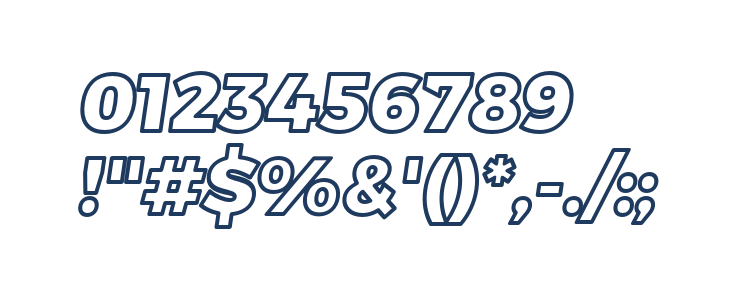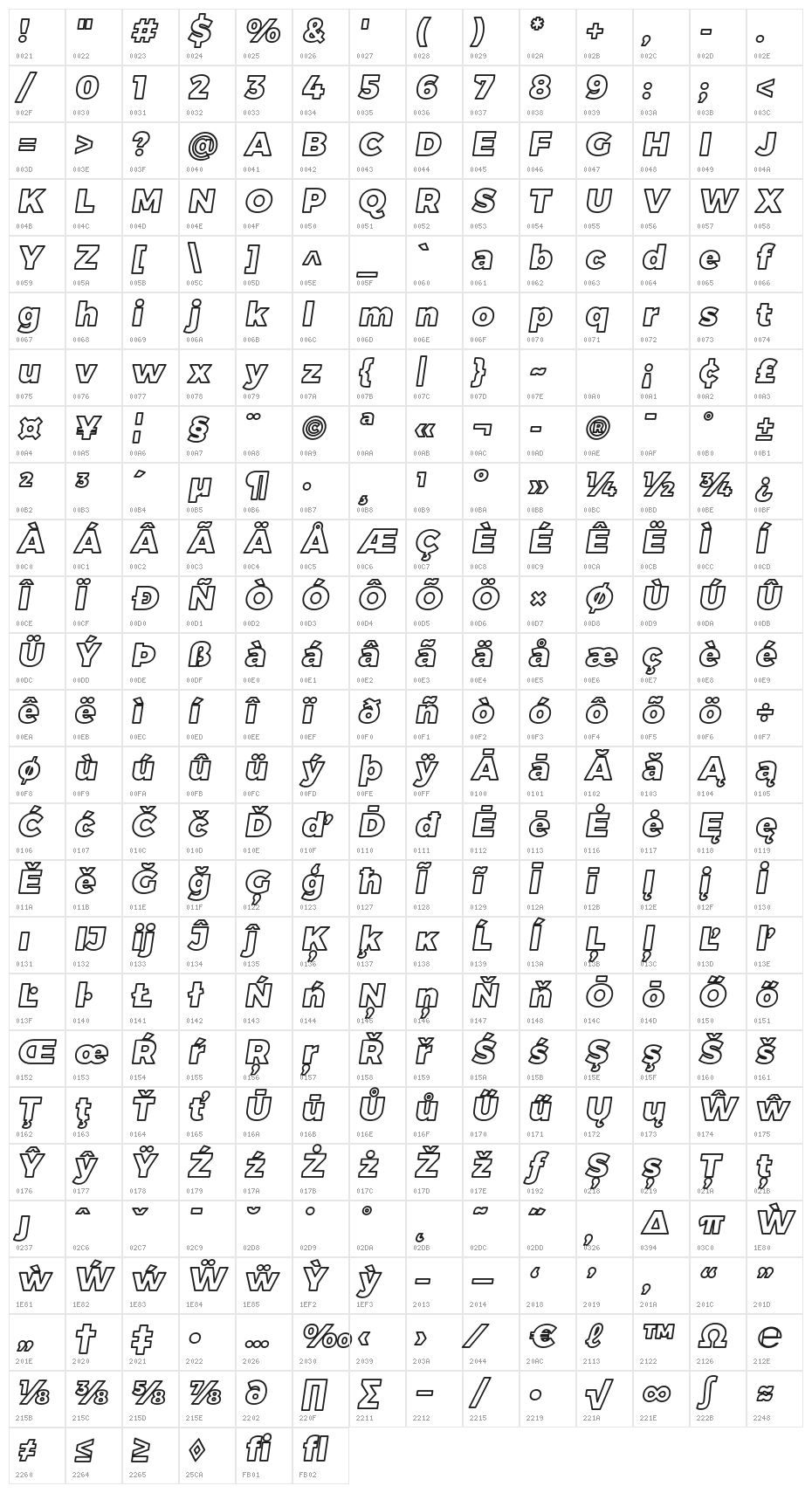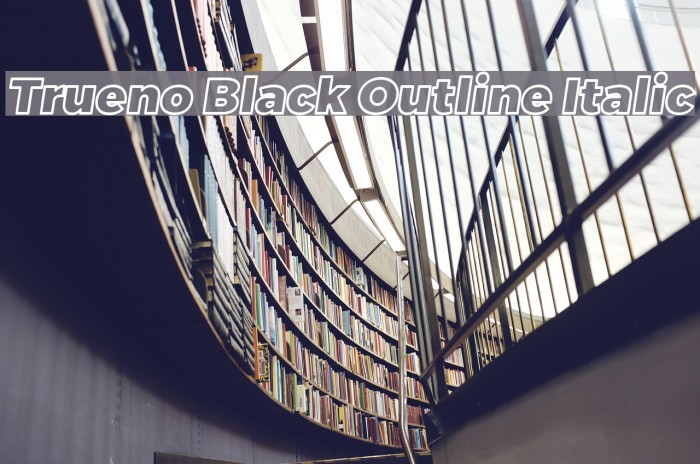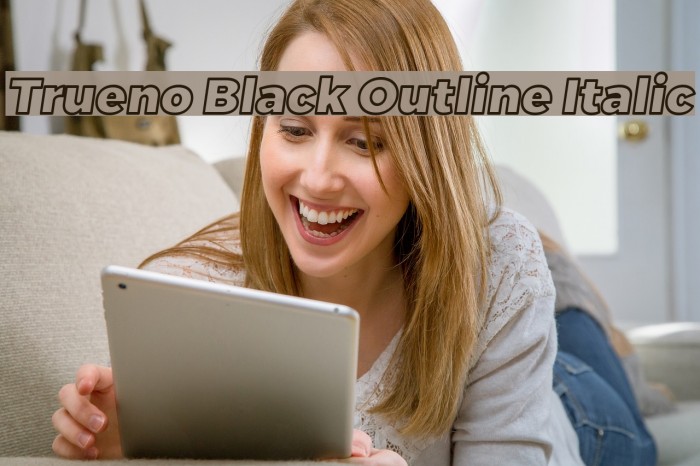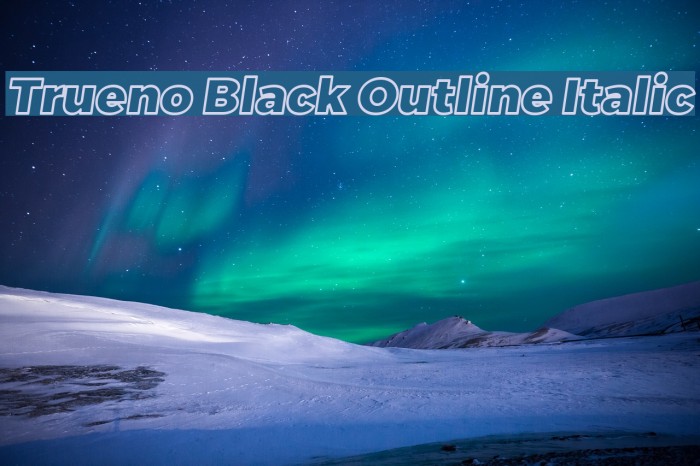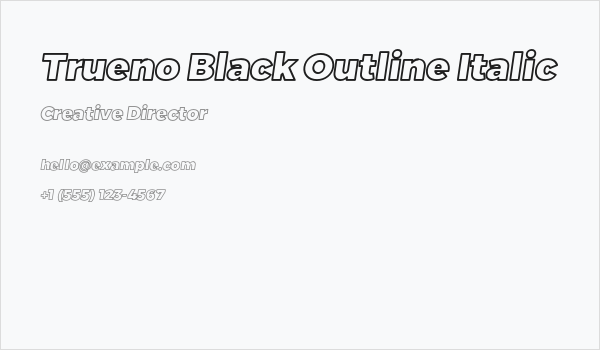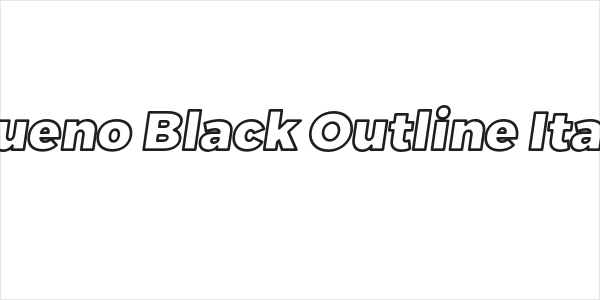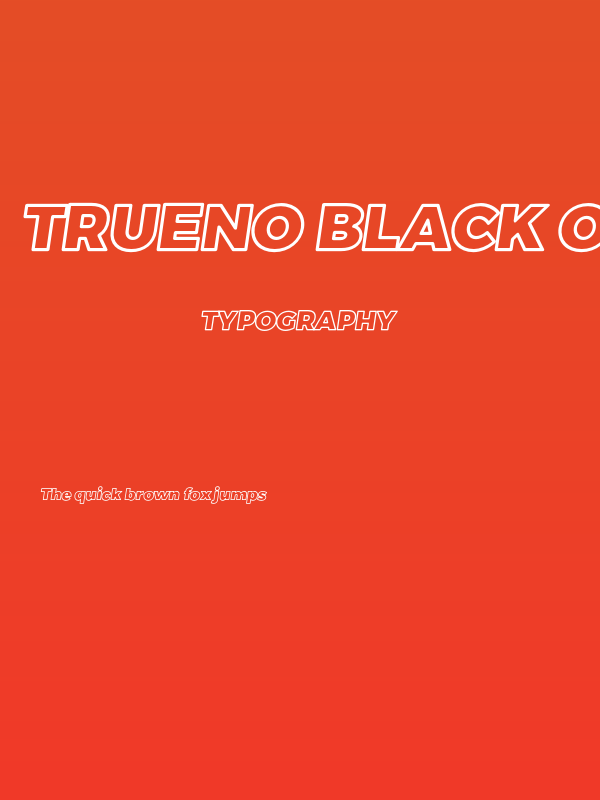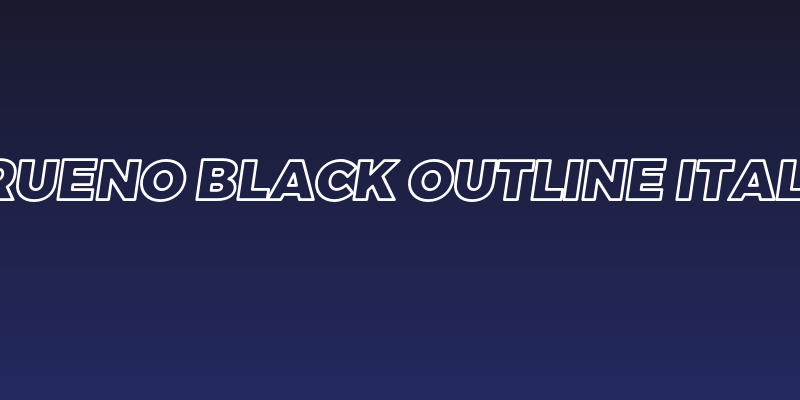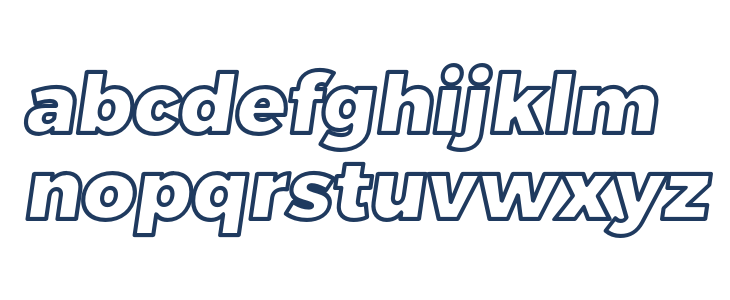
Trueno Black Outline Italic Font
Trueno Black Outline Italic Description
This font features a bold, outlined style with a modern and dynamic appearance. The italicized slant adds a sense of motion and energy, making it stand out in any design. The uppercase and lowercase letters maintain a consistent width, while the numbers and special characters are clearly defined and easy to read. The outline effect gives it a unique, eye-catching look, perfect for making text pop. Its clean lines and geometric shapes contribute to a contemporary feel, suitable for a variety of creative projects.
| Proposed Projects | Ideal for headlines, posters, logos, and branding materials where a strong visual impact is desired. |